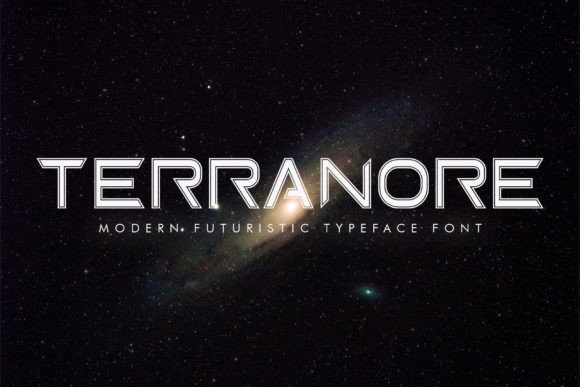
Embark on a captivating journey into the realm of futurism and innovation with Terranore, a display font that embodies the essence of hi-tech aerospace. Its minimalist yet distinctive design transcends the boundaries of ordinary typography, propelling your creative projects to unprecedented heights.
Unleash the power of Terranore and witness the transformation of your logos, labels, posters, packaging, books, movies, presentations, games, and more into masterpieces that radiate an aura of sophistication and cutting-edge aesthetics. This extraordinary font is meticulously crafted to elevate your designs, leaving an indelible mark on your audience.
With Terranore, your creations will soar beyond the mundane, capturing the essence of the future and igniting the imaginations of all who behold them. Its sleek lines and sharp angles evoke a sense of dynamism and energy, propelling your designs to the forefront of innovation.
Step into the spotlight and command attention with Terranore, the font that redefines the boundaries of creativity. Its versatility knows no bounds, seamlessly adapting to a myriad of design projects, from sleek and minimalist to bold and expressive. Let Terranore be your creative companion, guiding you towards design excellence and leaving your audience in awe.
Embrace the future and redefine the ordinary with Terranore, the font that ignites your imagination and propels your designs to new heights. Its futuristic charm and captivating aesthetics are guaranteed to leave a lasting impression, transforming your creative endeavors into works of art that speak volumes.